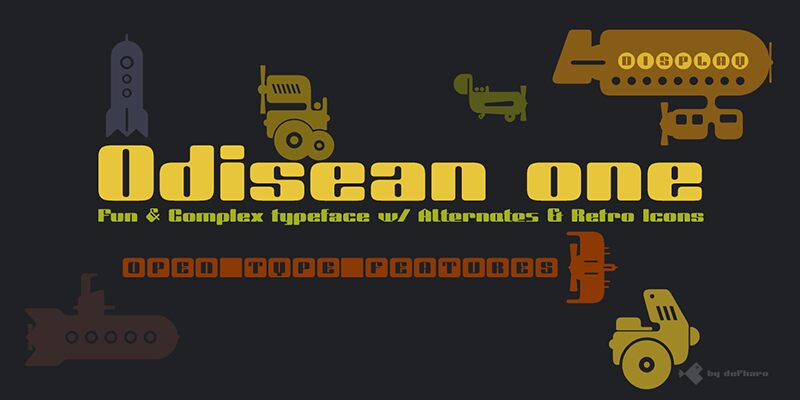
Odisean One
Odisean One Font, designed by Fernando Haro, is a captivating display font that takes you on a nostalgic journey to the past.
With its extra-bold weight and expanded width, this font is perfect for creating attention-grabbing headlines and titles. Whether you're working on vintage-inspired posters, retro album covers, or even reviving the spirit of classic advertising campaigns, Odisean One will effortlessly bring back the charm of the golden era. Additionally, this font offers alternative lettering styles and retro transportation icons to further enhance your designs with an authentic touch.
Step into a world of retro aesthetics with Odisean One Font.
Odisean One is a typographic experiment where all the proportions and measures of the characters and metrics are multiples of the number eight. The result is a very steep typography of square proportion with a great contrast between the horizontal / vertical horns and rounded in all corners.